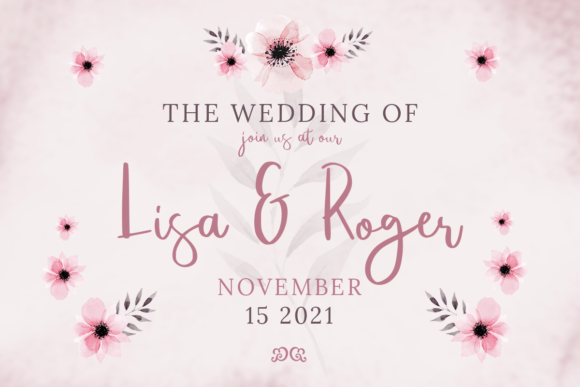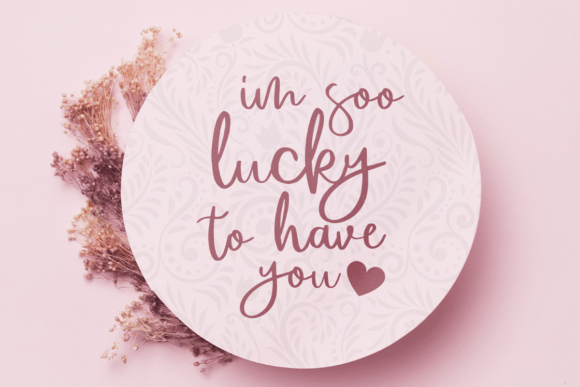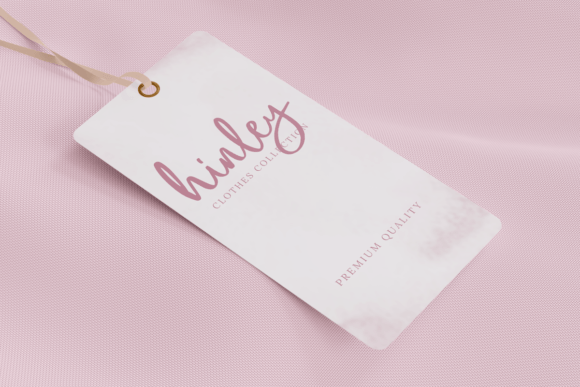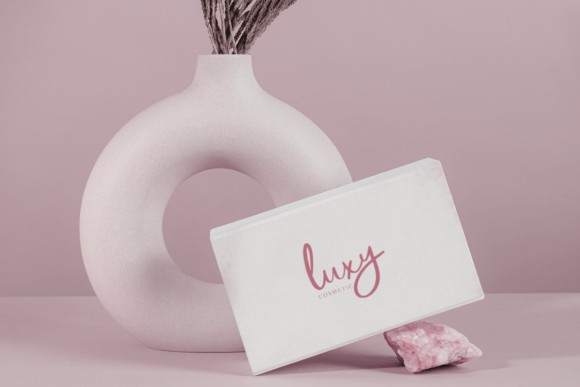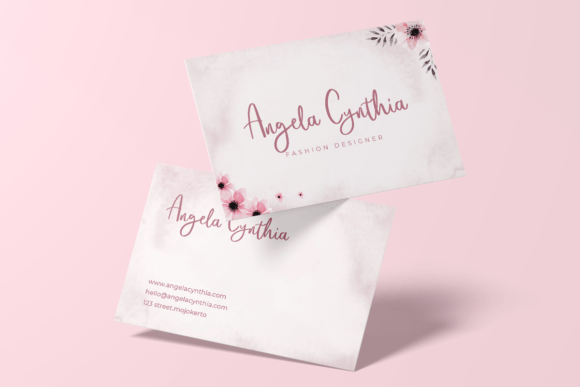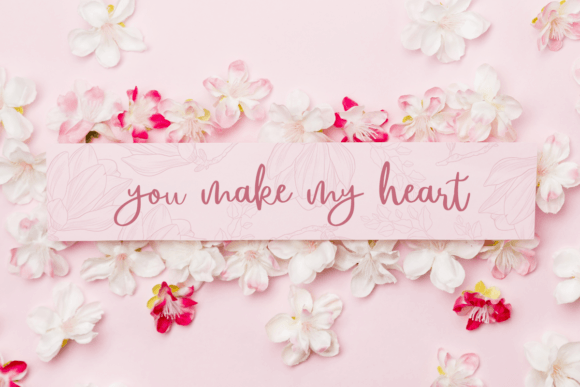
Introduction to Gifler Font
Have you ever been in the midst of a creative project, and you just can’t find the perfect font to bring your vision to life? I know I have. The frustration of scrolling through page after page of fonts, only to find none that truly capture the essence of your design. But then, like a breath of fresh air, you stumble upon a font that changes everything. For many designers, that font is the Gifler Font.
With its delicate and elegant handwritten style, the Gifler Font is a high-quality design resource that’s sure to elevate any creative project. Its well-balanced letters are a masterclass in typography, making it a valuable asset for designers who demand the best. And the best part? The Gifler Font is available for a free download, complete with a transparent background, making it easy to integrate into your design.
Key Features of Gifler Font
- The Gifler Font is a high-quality design resource perfect for creative projects requiring a unique touch.
- The Gifler Font is designed with a modern aesthetic, making it an excellent choice for contemporary creative projects.
- Its unique characteristics and stylish design make it a standout font for designers seeking to add a touch of sophistication to their work.
Honest Review: Gifler Font
I recently had the chance to work with the Gifler Font, and I must say it’s been a solid addition to my design resources. This high-quality font is perfect for any creative project that requires a modern touch.
- ✨ Unique design style that sets it apart from other fonts
- ⚠️ Limited font weights and styles available (although still a great starting point for many projects)
- ⚠️ Not ideal for projects requiring extreme precision or high-end typography
Overall, I’m impressed with the Gifler Font. While it may have some limitations, its modern design and free download make it a valuable addition to any designer’s toolkit. I’d definitely recommend giving it a try for your next creative project.
Experiment with different font sizes and styles to create a visually appealing design. Use the Gifler Font in combination with other design elements, such as images and shapes, to add depth and interest to your design. The Gifler Font is a versatile design resource that can be used for a variety of creative projects.
The Gifler Font is commonly used for social media graphics, blog posts, and marketing materials. Its high quality and unique design make it perfect for creating eye-catching and memorable designs. Whether you’re working on a personal or professional project, the Gifler Font is a great choice for adding a touch of creativity and style.